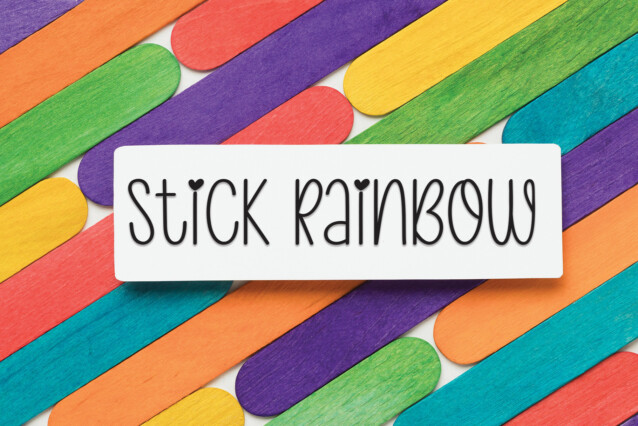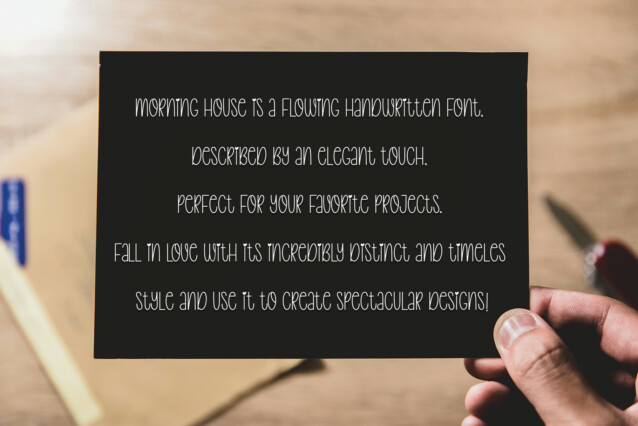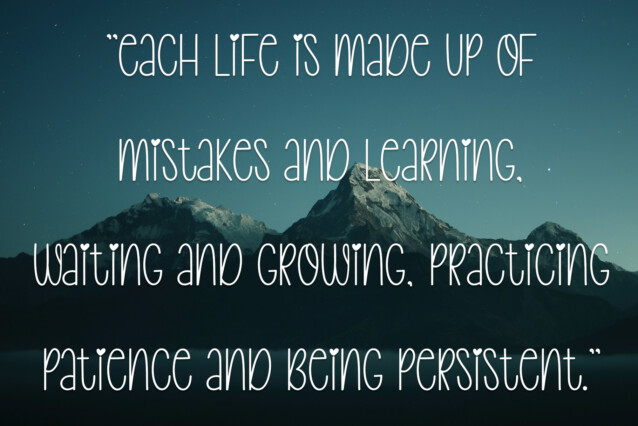
Morning House Display Font
Morning House Display Font – The latest style letters are perfect for wall displays, wedding invitations, social media post logos, advertisements, product packaging, product designs, labels, photography, watermarks, invitations, stationery, and any project that requires a taste for handwriting.